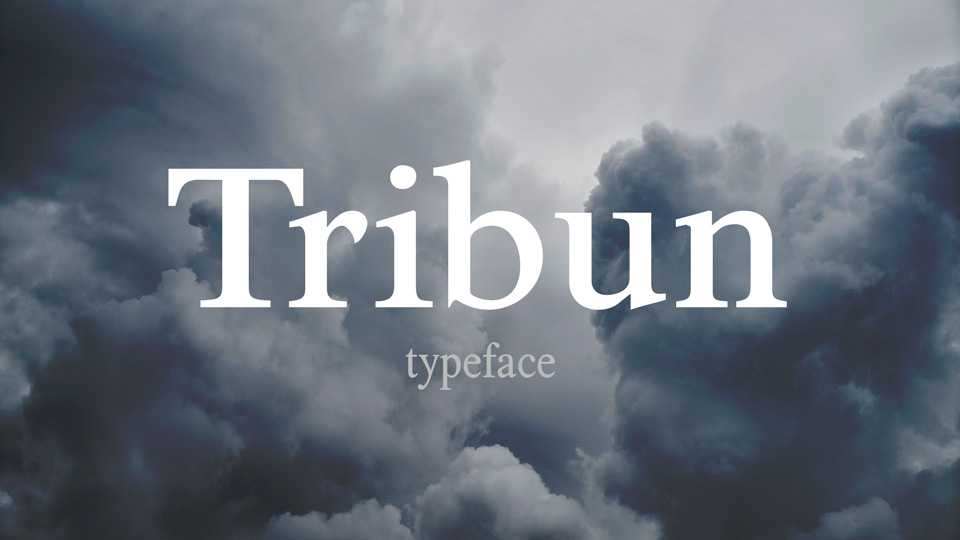
Download Tribun typeface, a serif font family made with the aim of having a newspaper effect. Tribun has a high contrast to provide a pleasant reading experience and a great visual comfort.
Designer: Arkandis Digital Foundry